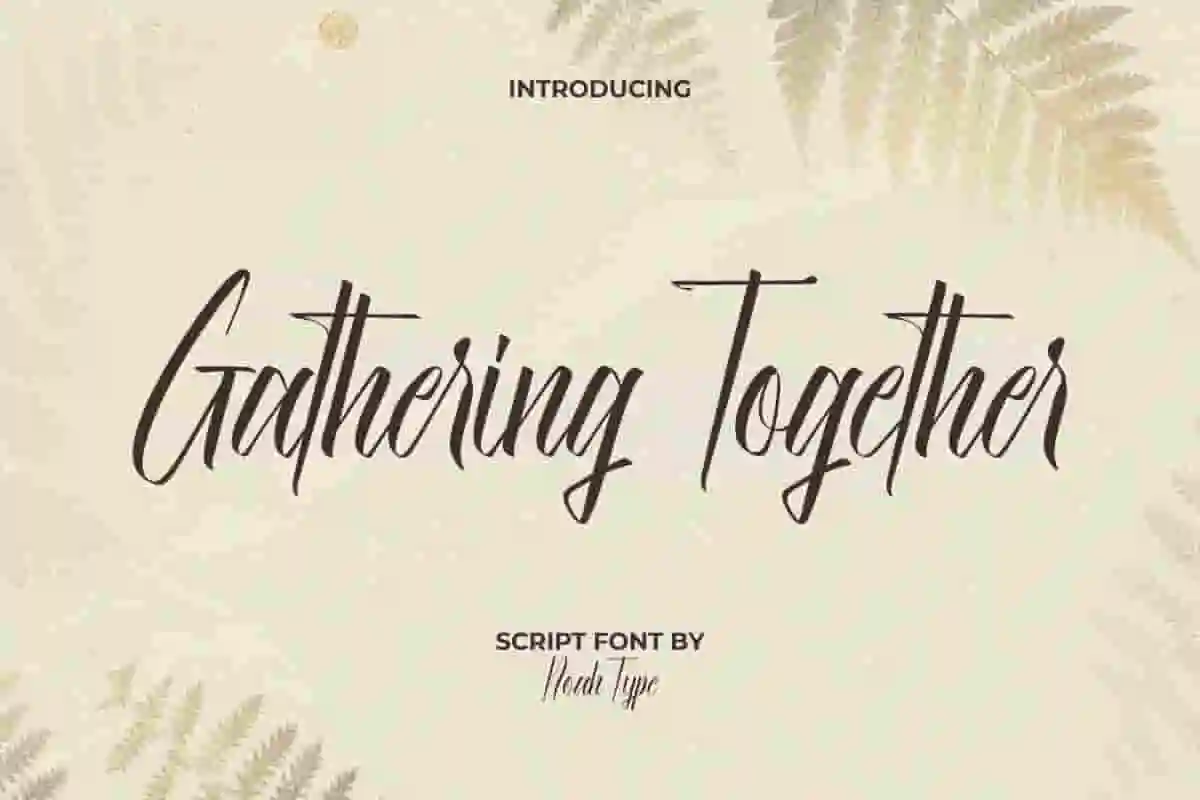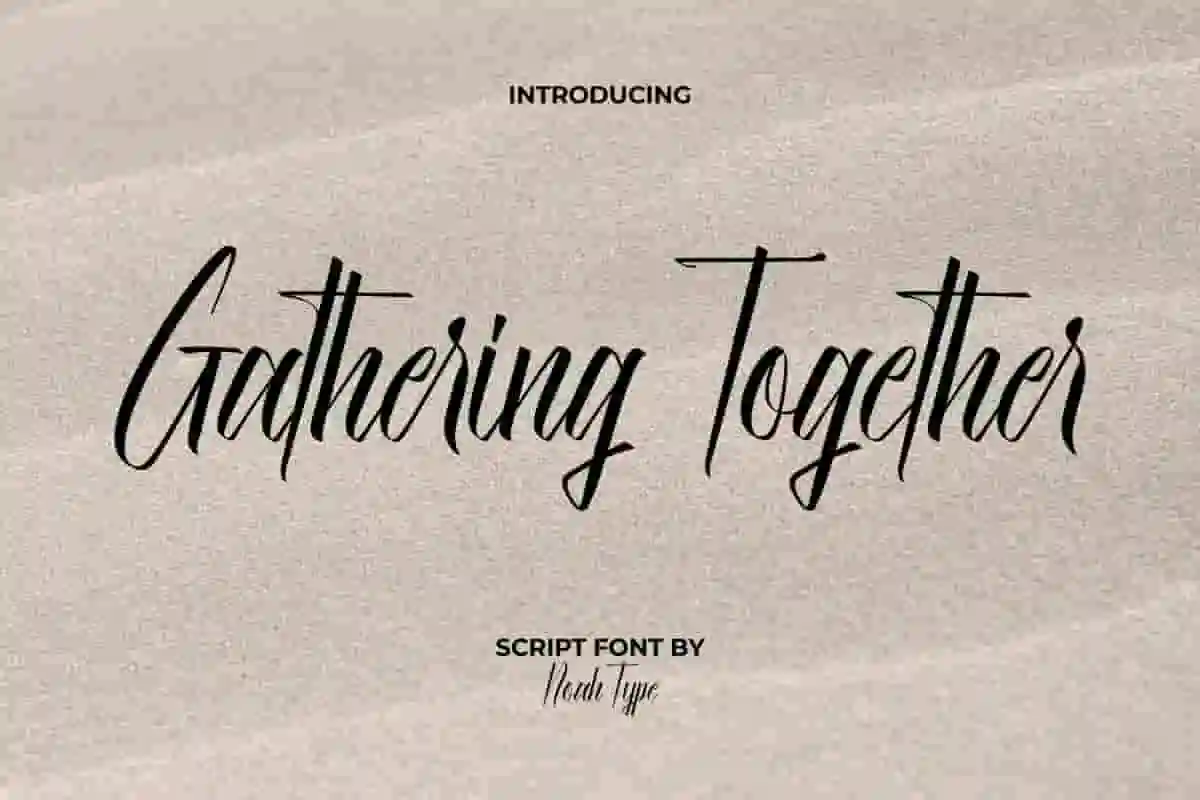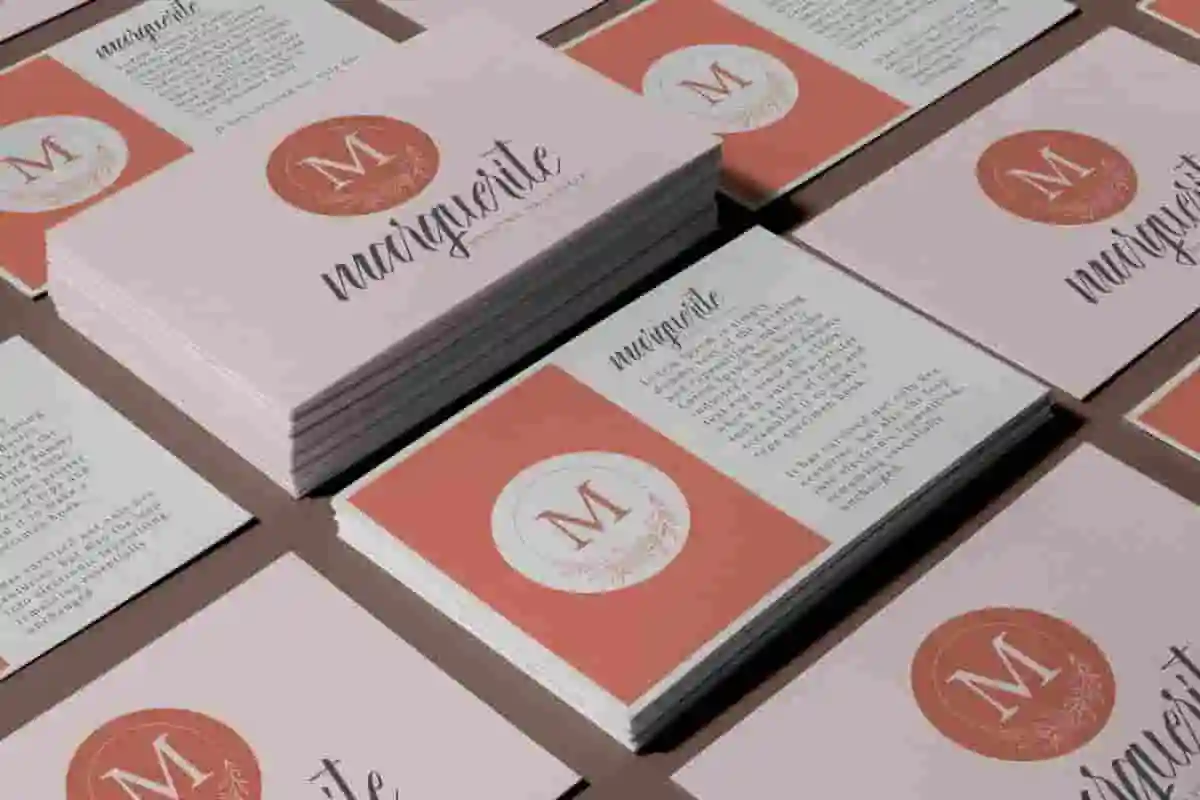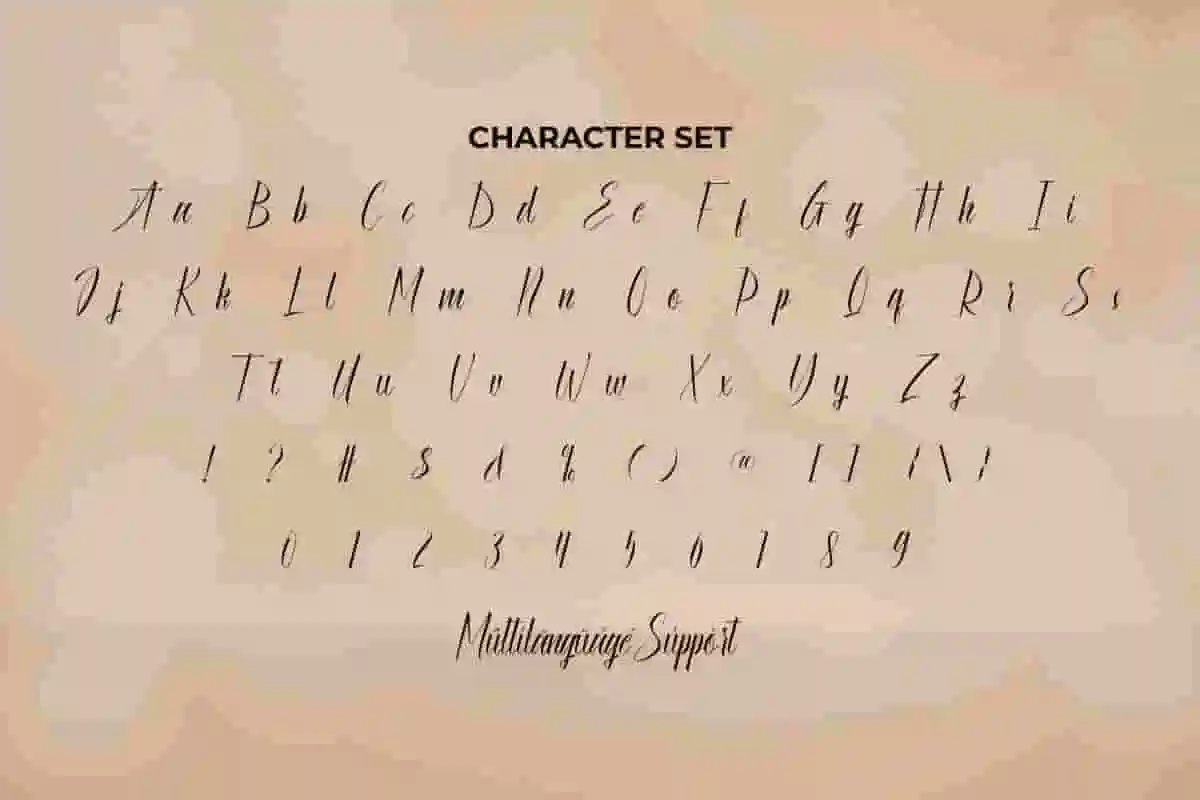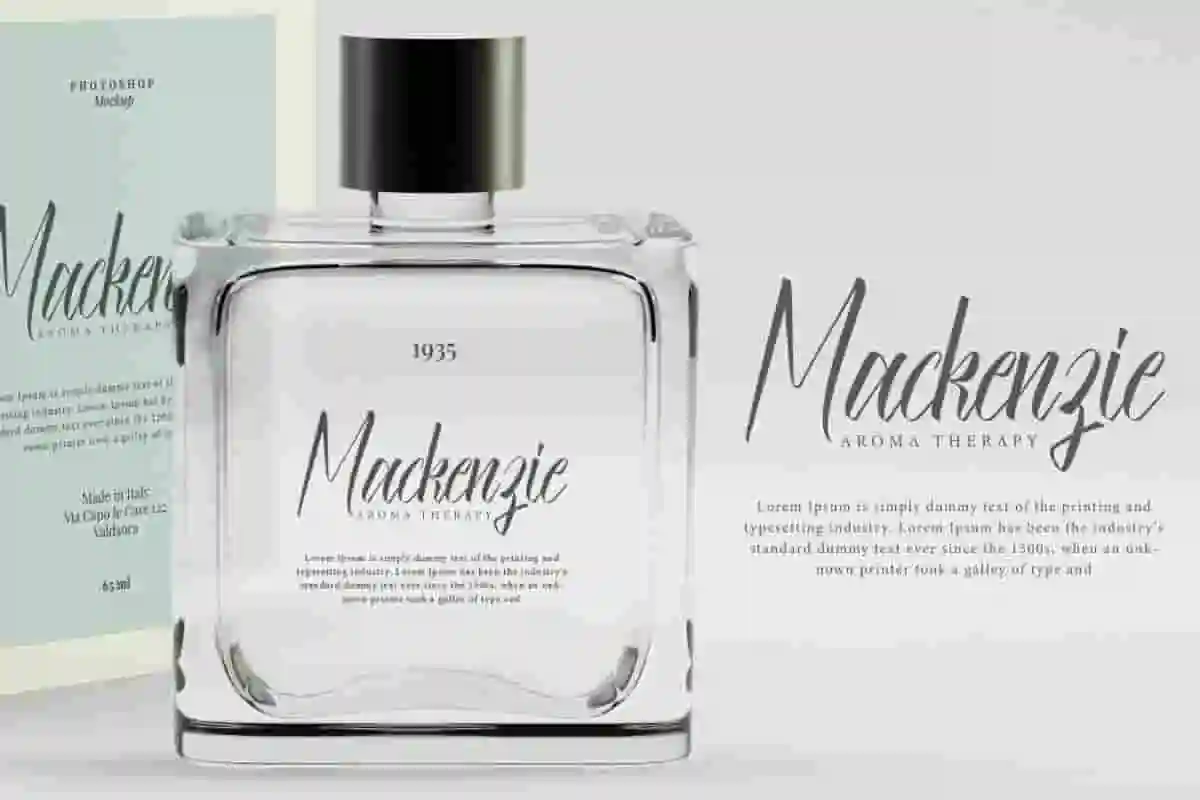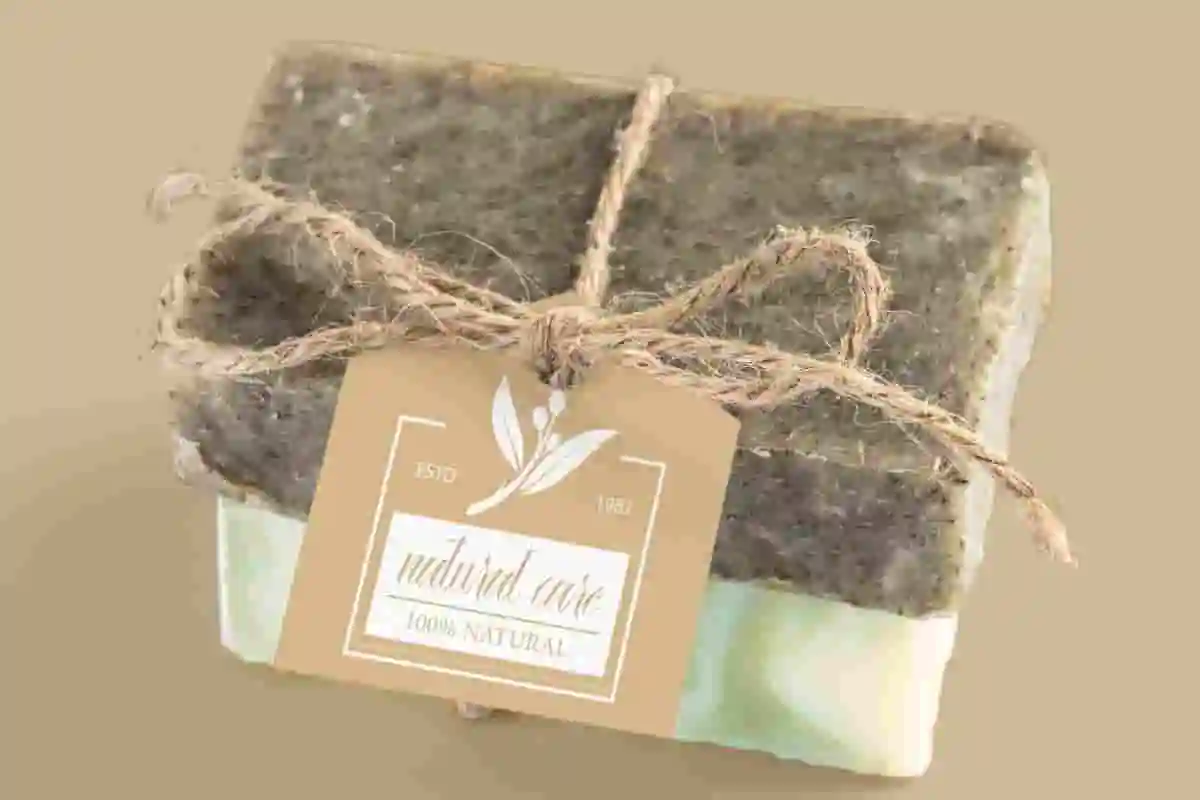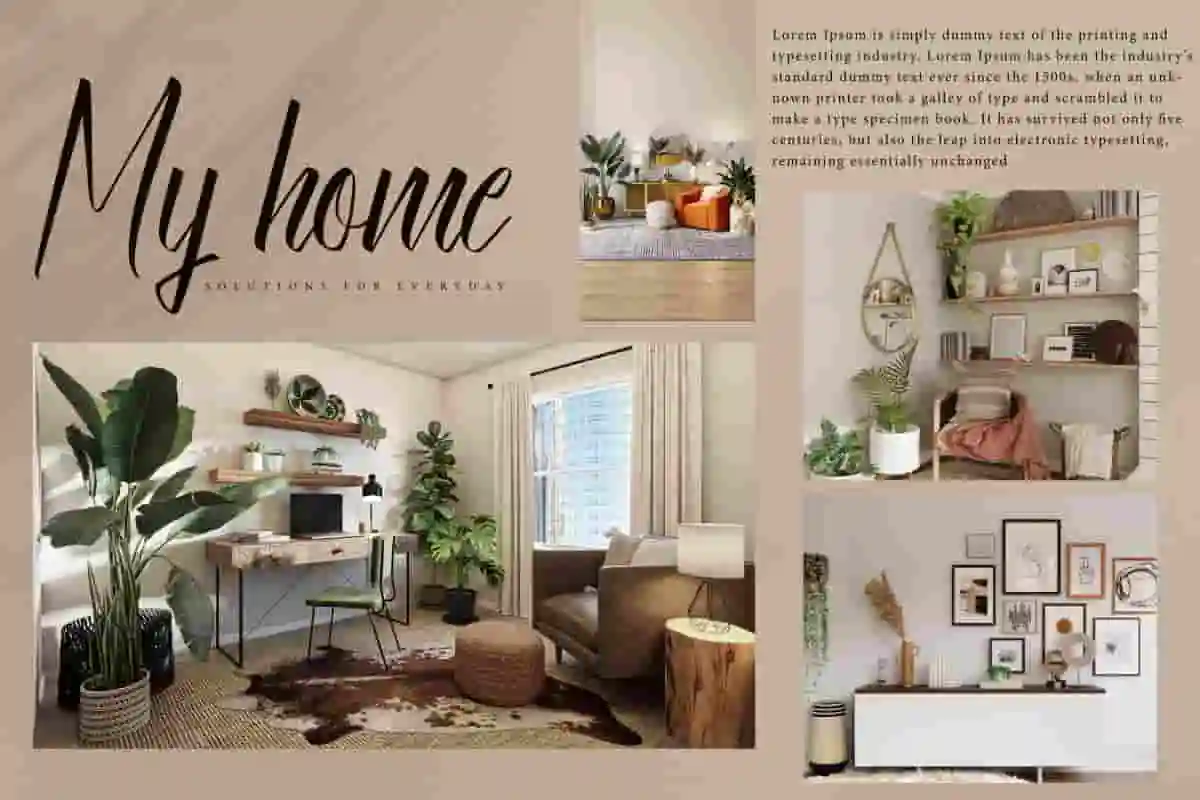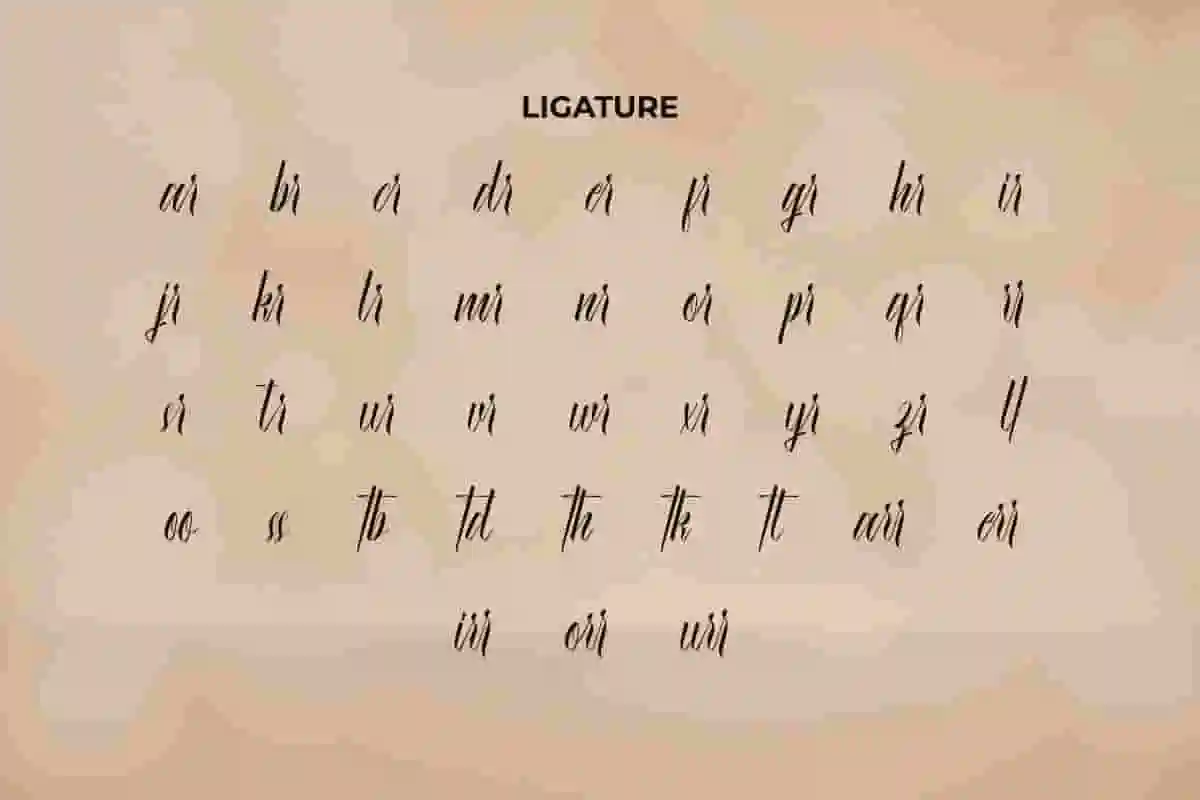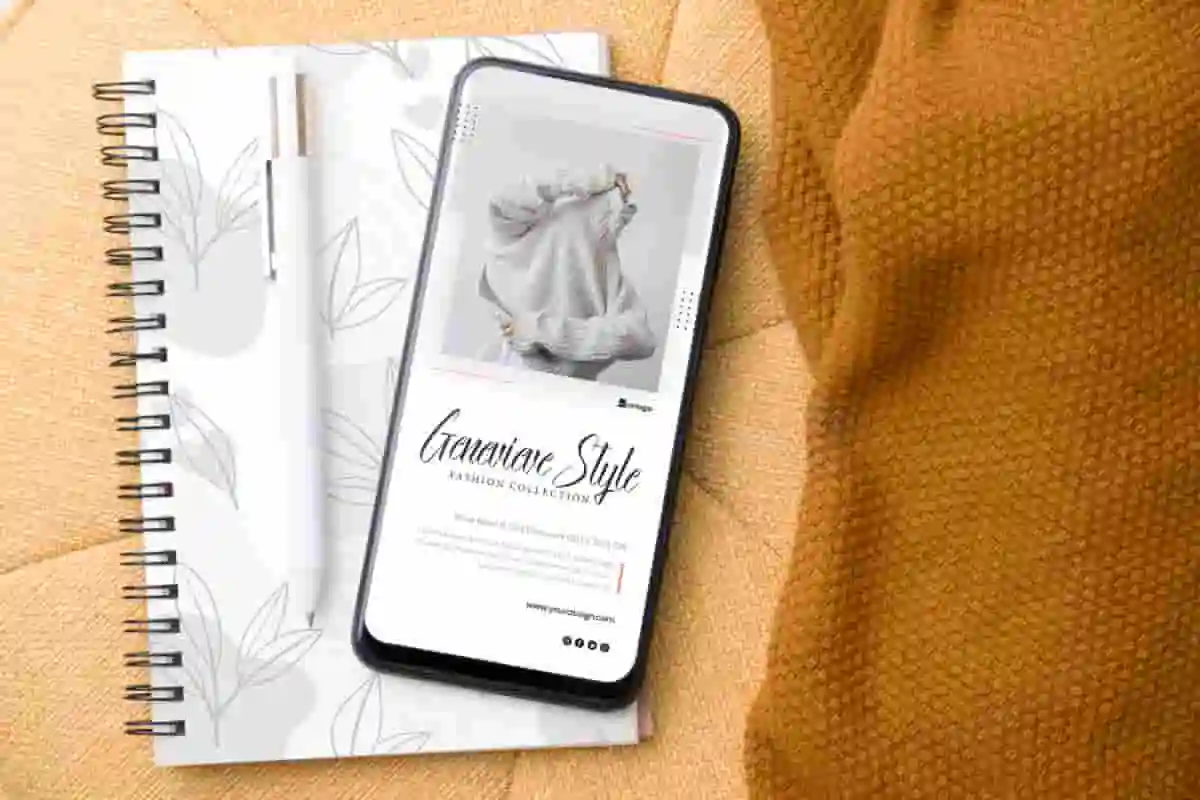
Gathering Together Font is a gorgeous signature calligraphy script font from NoahType. This font is made of beautiful lines that convey luxury that will delight your eyes to produce glamour designs, such as apps, business card, custom design, invitation, label, magazine catalog, menu, poster, product packaging, quotes, title, watermark, website, and more!
Gathering Together Font includes full set of Uppercase and Lowercase Basic Characters, Numerals, and Punctuation. It also contain Ligature characters that will add perfection and making it suitable for many industries, such as cosmetic, fashion, florist, furniture, interior design, jewelry and accessories, perfume, skincare, spa and salon, wedding or event organizer, etc.
Discover the charm of connection and creativity with Gathering Together Font, a beautifully handcrafted handwritten typeface designed to bring warmth, personality, and elegance to your designs. Whether you’re creating invitations, branding, social media posts, or product packaging, this font will make every word feel heartfelt and memorable.
Inspired by the joy of togetherness, Gathering Together Font combines smooth curves, organic strokes, and a natural handwritten flow.